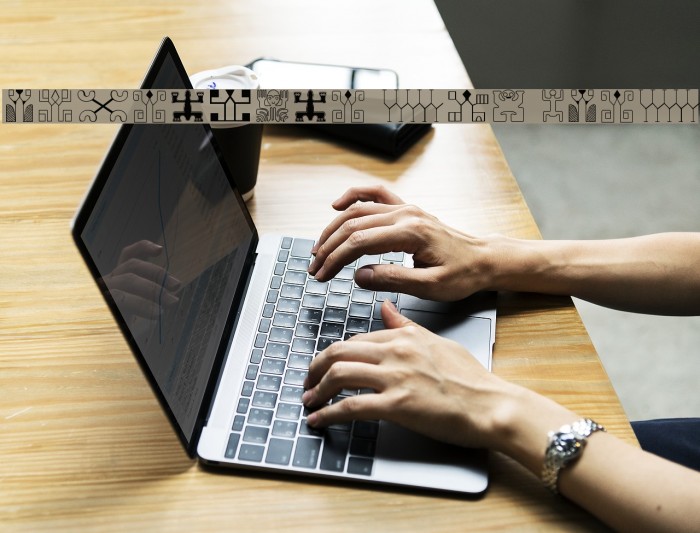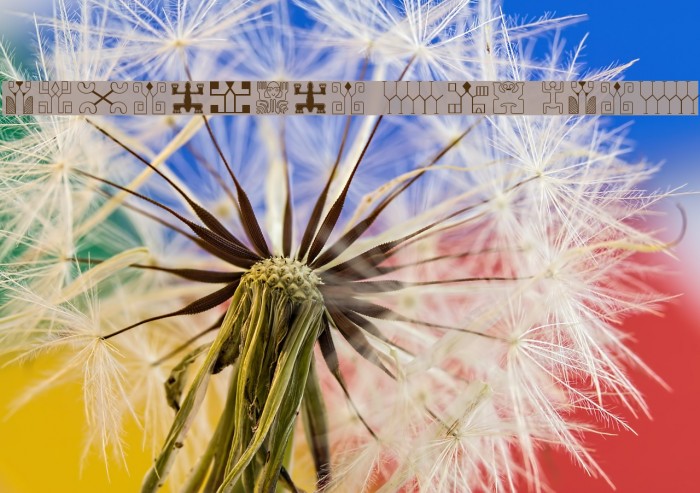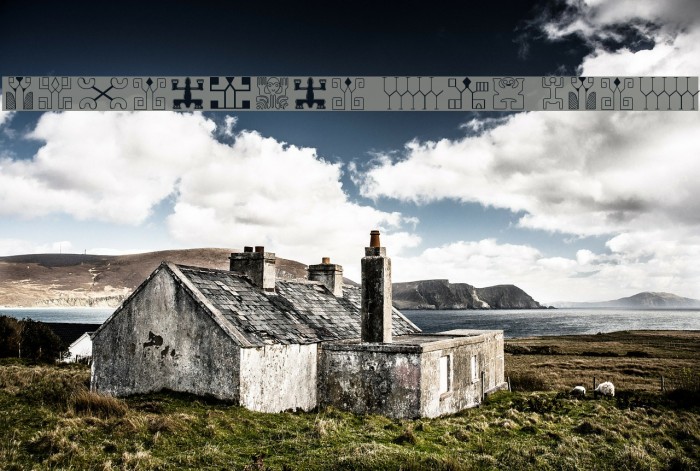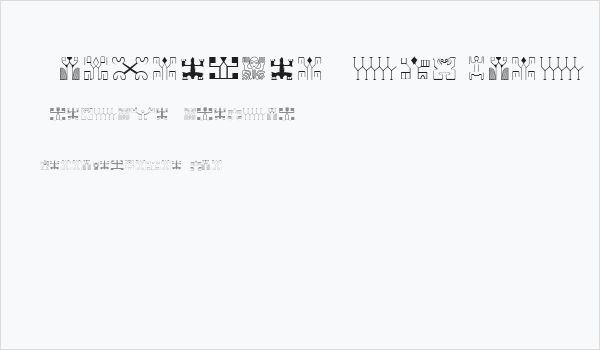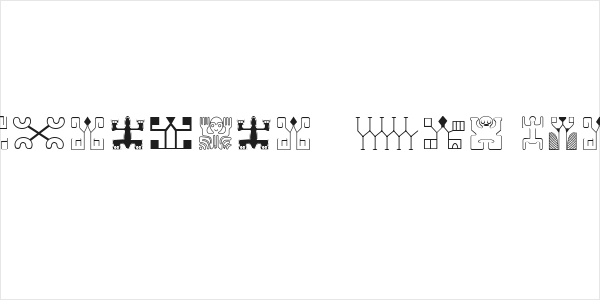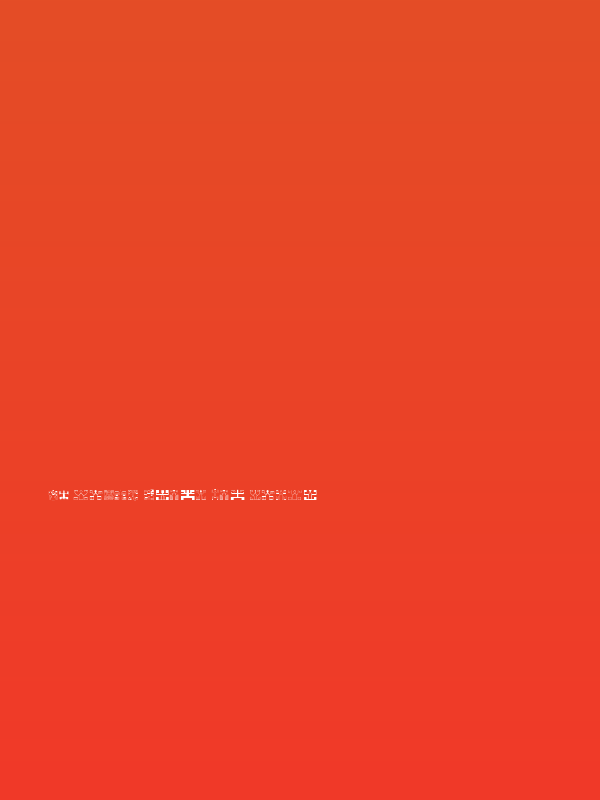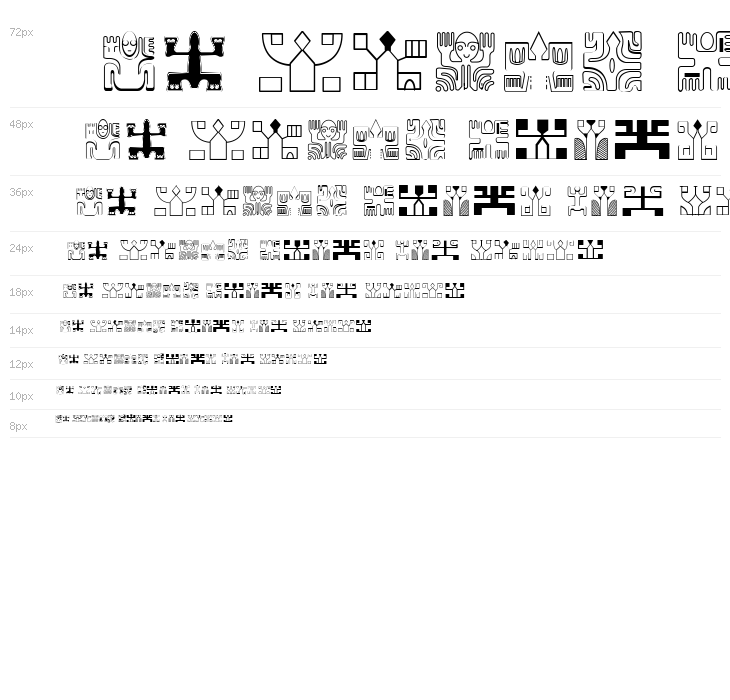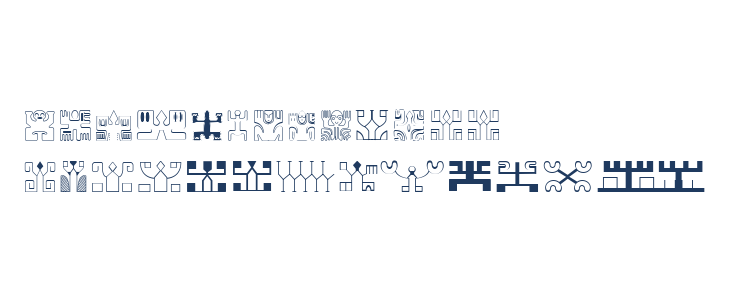
Polynesien Etua font Font
Polynesien Etua font Description
This font features a unique and intricate design inspired by Polynesian art and symbolism. Each character is crafted with elaborate geometric patterns and shapes, creating a visually striking and decorative appearance. The font's style is reminiscent of traditional tribal tattoos and carvings, with bold lines and detailed motifs. The characters are highly stylized, making them more suitable for decorative purposes rather than readability in long text passages. The font's artistic nature makes it ideal for projects that require a cultural or exotic flair, such as themed posters, event invitations, or branding for businesses that want to convey a sense of heritage and tradition.
| Use Case | Logos, Headlines |
| Proposed Projects | Ideal for themed posters, event invitations, and branding that requires a cultural or exotic touch. |